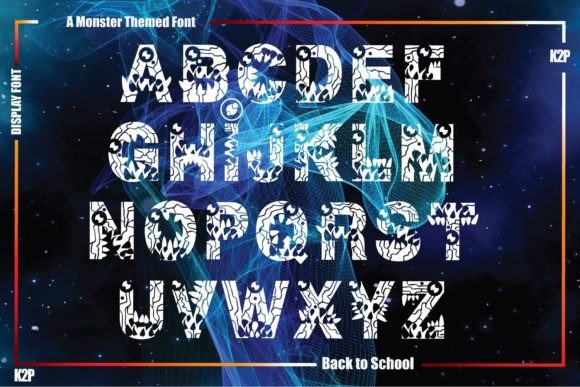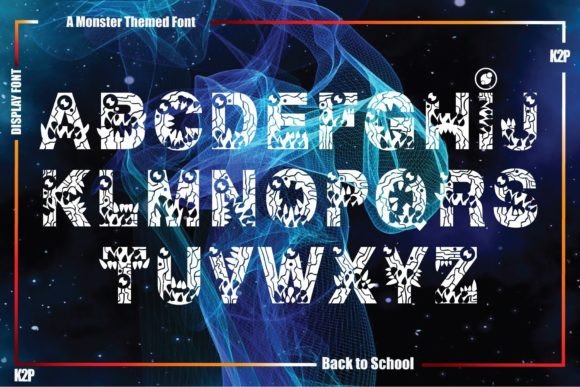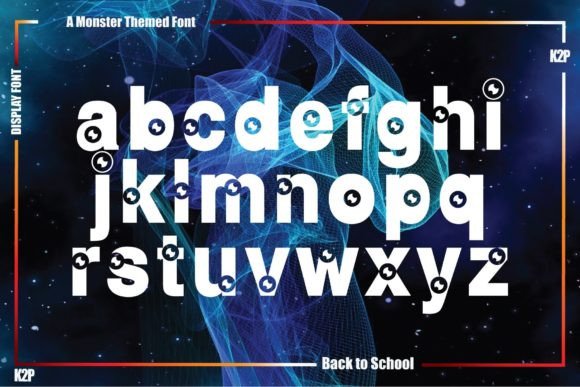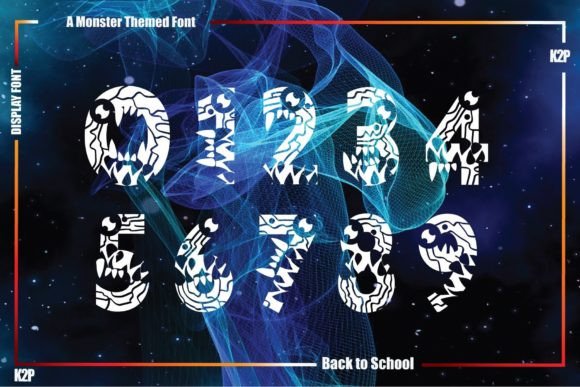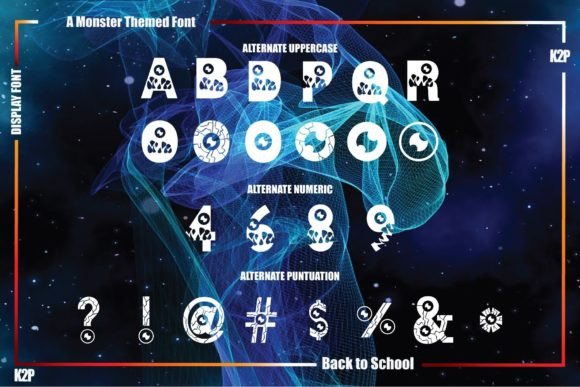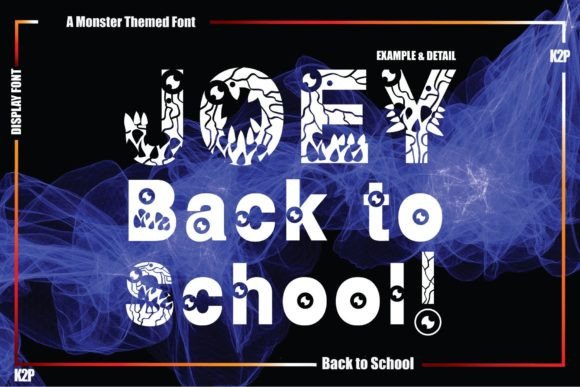
Introduction to Kaiju Kidz Font Font
Fonts play a crucial role in design, and the Kaiju Kidz Font font is a typeface that brings both character and versatility to any project. Whether you’re working on a branding project, a website, or a print design, the Kaiju Kidz Font font offers a unique style that can elevate your work.
Kaiju Kidz is a bold and incredibly cool decorative font.
It can be used for various design ideas, particularly those related to children, cartoons, and games Have fun with this beautiful font and explore its endless variations.
Key Features of Kaiju Kidz Font Font
Why Choose Kaiju Kidz Font Font?
The Kaiju Kidz Font font is more than just a typeface – it’s a design tool that helps you communicate your message with style and clarity. Its unique character set and versatile design make it suitable for a wide range of applications, from elegant invitations to bold headlines.
With its carefully crafted letterforms and balanced proportions, the Kaiju Kidz Font font ensures readability and visual appeal across all mediums.
What makes Kaiju Kidz Font font special?
The Kaiju Kidz Font font stands out with its unique design, exceptional readability, and versatility across various design applications.